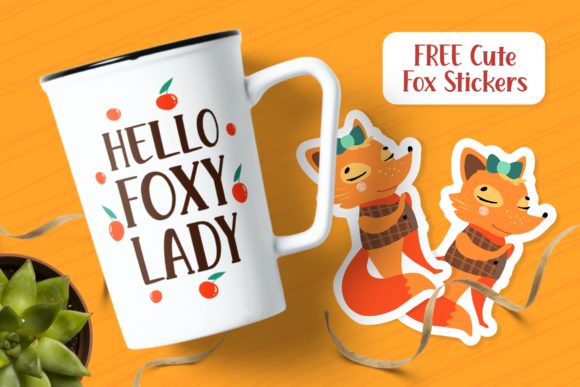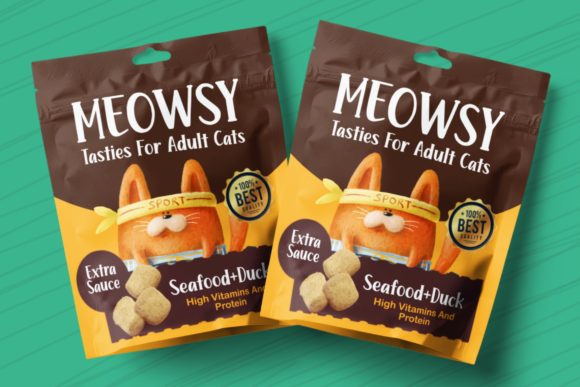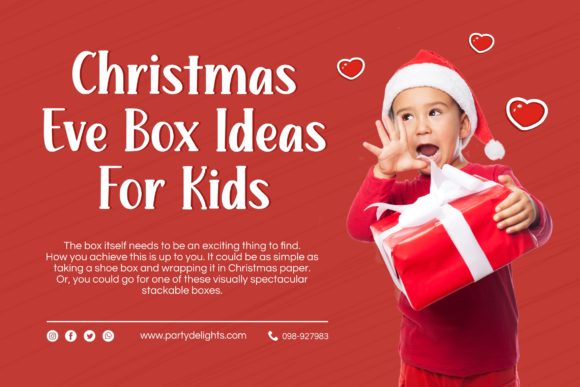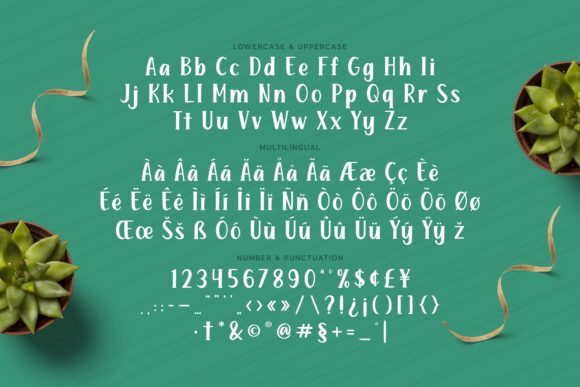
The Ultimate Guide to Absolute Font: A Playful and Neat Display Font
I’ll never forget the time I was working on a children’s book project, and my client asked me to create a custom font that would make their storybook come alive. I spent hours scouring the internet for the perfect font, but nothing seemed quite right. That’s when I stumbled upon Absolute Font, a playful and neat display font that instantly captured the whimsical spirit of the project. In this article, I’ll share my experience with Absolute Font, its features, and how to make the most of it in your designs.
An Honest Review of Absolute Font
What I Love About Absolute Font
- ✨ Playful and fun: Absolute Font has a unique, hand-crafted feel that’s perfect for children’s themed designs, such as kids’ party invitations, educational materials, or storybooks.
- ✅ Neat and clean: Despite its playful nature, the font remains remarkably legible, even at smaller sizes, making it suitable for a wide range of applications.
- 🌈 Colorful possibilities: Absolute Font looks amazing when paired with bright, bold colors, adding an extra layer of visual excitement to your designs.
While Absolute Font is an excellent choice for many projects, there are a few things to keep in mind:
- 🤔 Limited use cases: Due to its playful nature, Absolute Font might not be the best fit for more formal or corporate designs.
- ⚠️ Glyph limitations: While the font has a range of useful glyphs, it might not have every special character or symbol you need.
The Backstory of Absolute Font
According to its creators, Absolute Font was inspired by the world of children’s literature and the magic of imagination. The font’s playful, hand-crafted feel is designed to evoke a sense of wonder and curiosity in readers of all ages.
Q: What type of designs is Absolute Font best suited for?
A: Absolute Font is perfect for children’s themed designs, such as kids’ party invitations, educational materials, storybooks, and more.
Q: Does Absolute Font support OpenType features?
A: Yes, Absolute Font supports OpenType features, including glyphs and stylistic alternates.